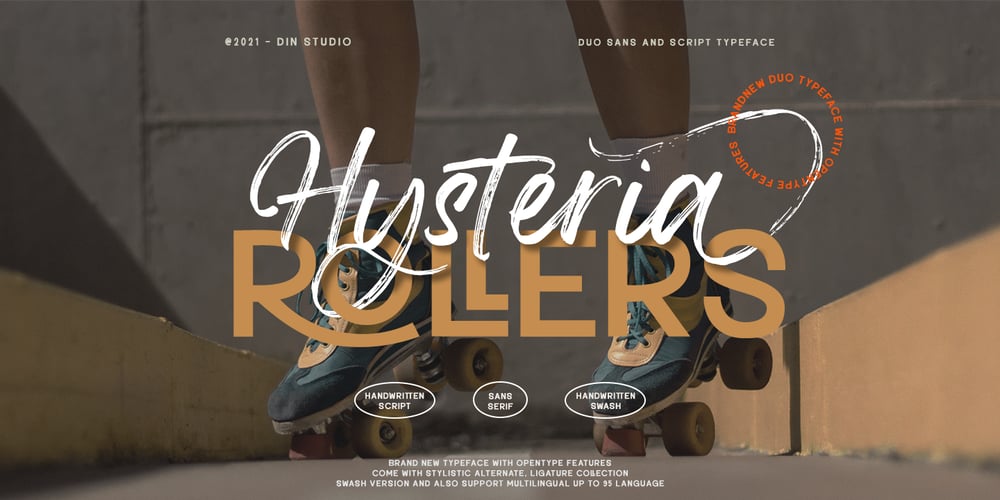
Hysteria Rollers Font Family was designed by Donis Miftahudin and published by Din Studio. Hysteria Rollers contains 3 styles and family package options. Hi, Everyone! Looking for a font that will make your branding stand out? Do you sometimes have an appetite for a bit more wholesome typography? Looking for a fabulous, stylish, and adventure font? We’ve got what you want.Hysteria Rollers – A Sans Script Font DuoHysteria Rollers is a fantastic font duo. An uppercase sans serif font is accompanied by a gorgeous handcrafted script brush font that works together in perfect harmony. Designed primarily as a captivating font to add the right amount of modernity and style, This font duo is an excellent choice to ensure a great font match for your designs and projects!Our font always includes Multilingual Support to make your branding reach a global audience. Features: Ligatures Alternates Stylistic Set Swashes PUA Encoded Numerals and Punctuation Thank you for downloading premium fonts from Din Studio